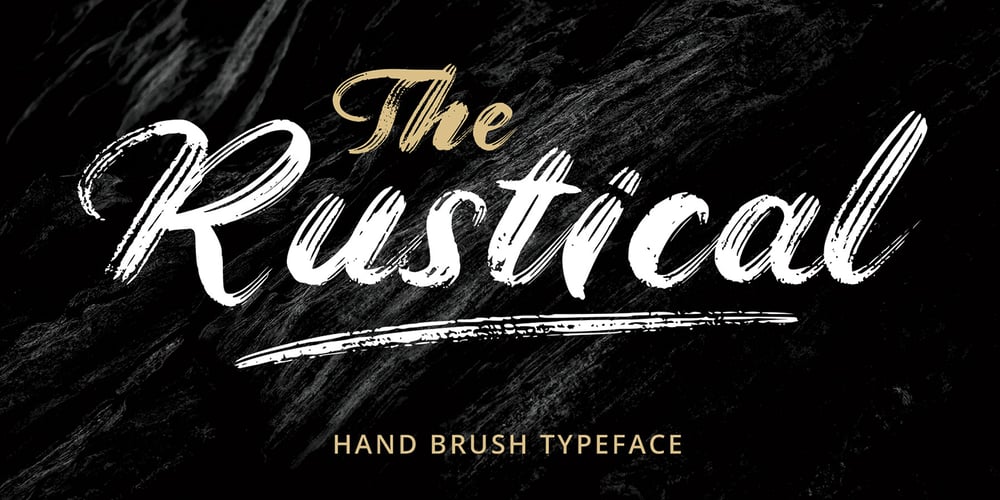
Rustical Font Family was designed by Jos Gandos and published by Jos Gandos. Rustical contains 2 styles and family package options. Rustical is handwritten brush font. It will be suitable for branding design, menu designs, product packaging, quote or simply design with stylish text overlay to any background image.